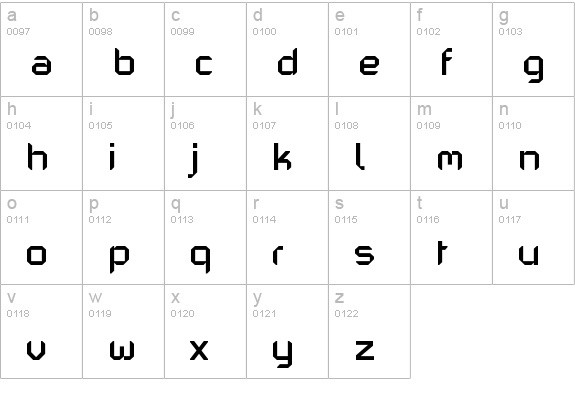
PFMechanicaAPro-Regular is the standard, neutral variant in the PFMechanicaAPro typeface family \xE2\x80\x94 well suited to general body text, paragraphs, and standard typographic work.
PFMechanicaAPro-Regular font is a versatile and modern typeface that exudes a sense of mechanical precision and futuristic elegance. Its clean lines and geometric shapes make it perfect for a wide range of design projects, from tech-related branding to sleek editorial layouts. This font is freely available to download at FontsMarket.com, making it accessible to designers and creatives looking to add a touch of sophistication and innovation to their work. With its balanced proportions and subtle details, PFMechanicaAPro-Regular font is sure to make a bold statement while maintaining readability and clarity. Whether you're working on a cutting-edge website, a sleek logo design, or a high-tech product packaging, this font will elevate your project and give it a modern edge. Download PFMechanicaAPro-Regular font today and unleash your creativity with this stylish and contemporary typeface.